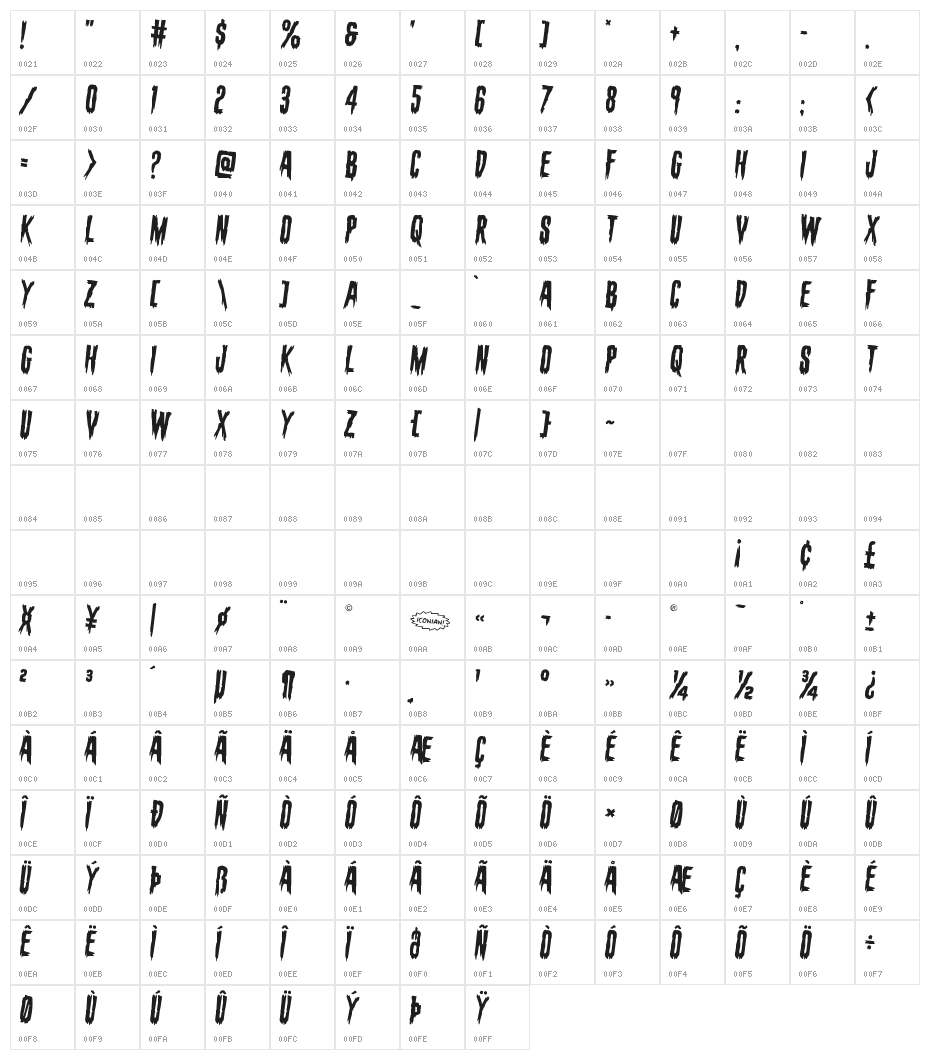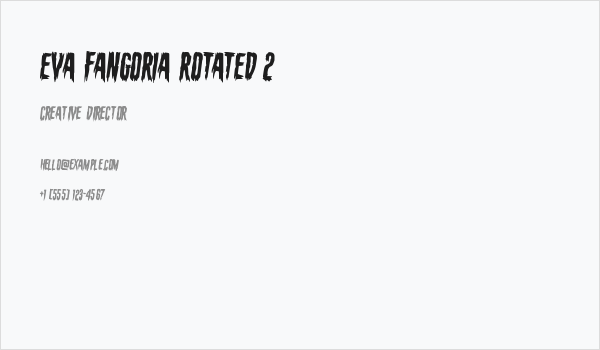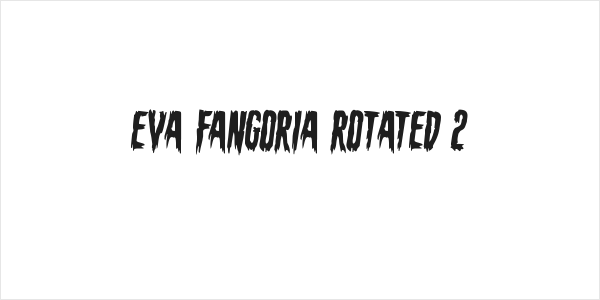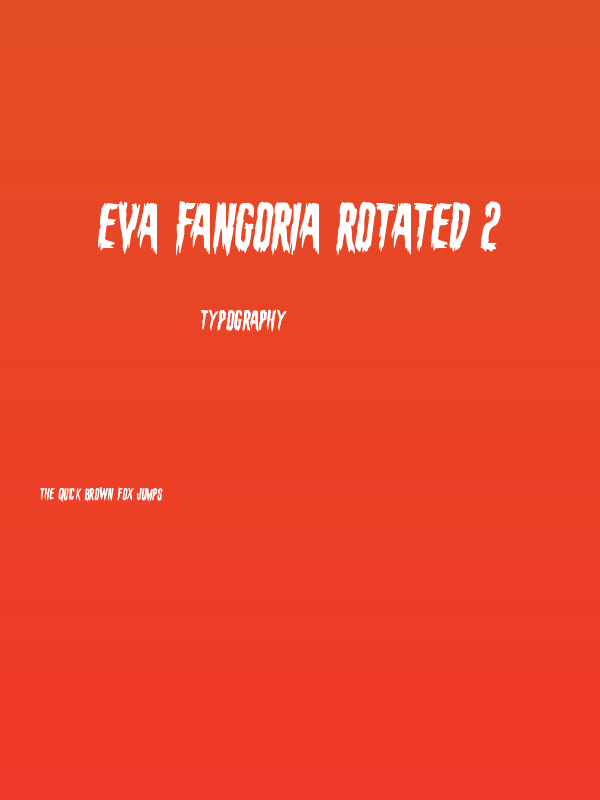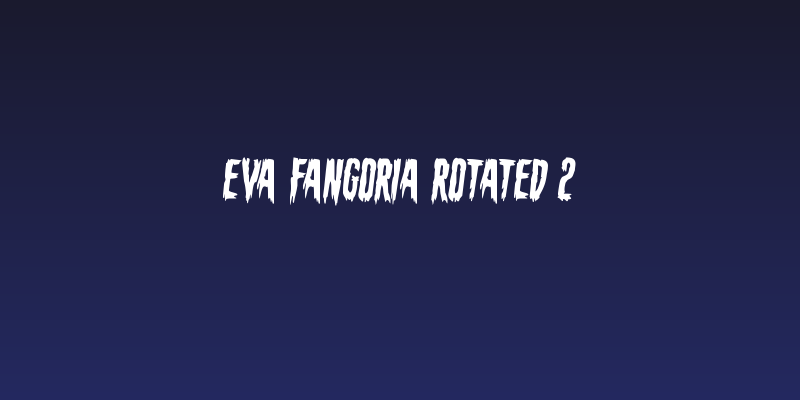
Eva Fangoria Rotated 2 Font
Eva Fangoria Rotated 2 Description
This font features a bold and jagged design, reminiscent of horror or thriller themes. The characters have an irregular, torn appearance, giving them a dynamic and edgy feel. The uppercase and lowercase letters maintain a consistent style, with sharp edges and uneven strokes that suggest movement and intensity. Numbers and special characters follow the same aesthetic, ensuring a cohesive look across all text elements. This font is ideal for creating eye-catching titles or graphics that need a dramatic impact.
| Proposed Projects | Perfect for Halloween-themed posters, horror movie titles, spooky event invitations, or any project requiring a dramatic and edgy typeface. |